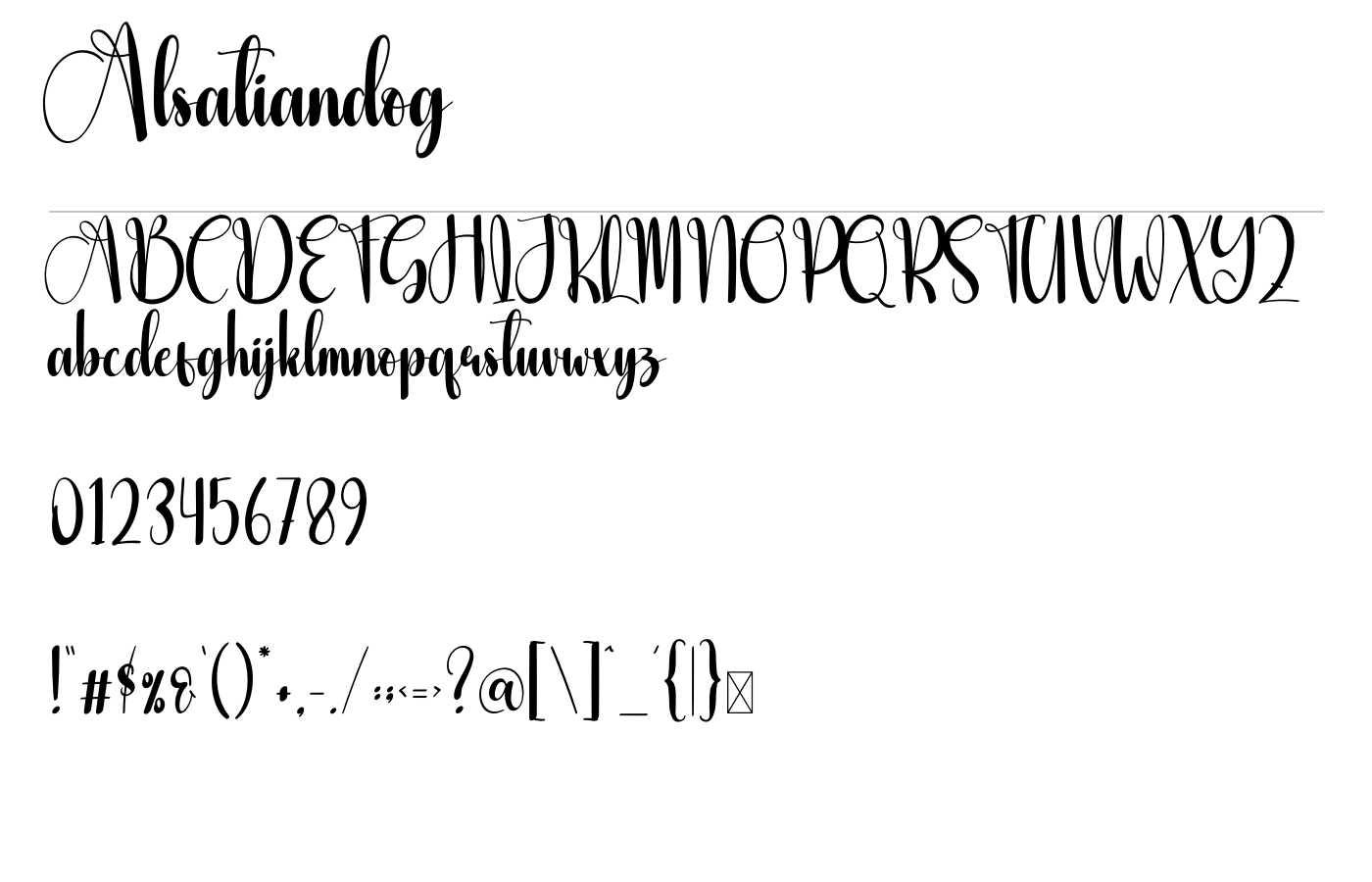
Alsatiandog is a playful and elegant script font with a tall, narrow structure and a dynamic contrast between thick and thin strokes. Featuring whimsical uppercase letters with elaborate loops and more solid, rounded lowercase forms, it brings a lively, handcrafted feel that suits creative branding, invitations, and expressive headlines. This font works well where a stylish, informal touch is needed to communicate personality and charm.
Alsatiandog Font
About Alsatiandog Font